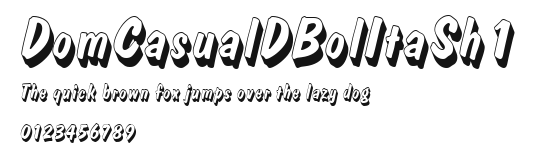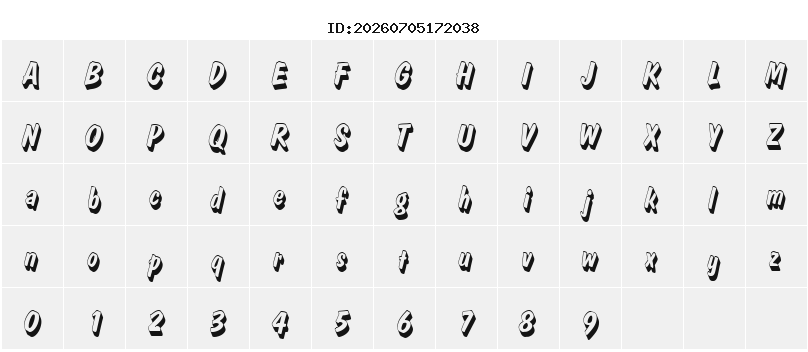
DomCasualDBolItaSh1 Preview
About DomCasualDBolItaSh1.ttf
DomCasualDBolItaSh1.ttf is a modern, elegant sans-serif font designed for ultimate readability and visual harmony. Perfect for branding, headlines, web design, and print materials.